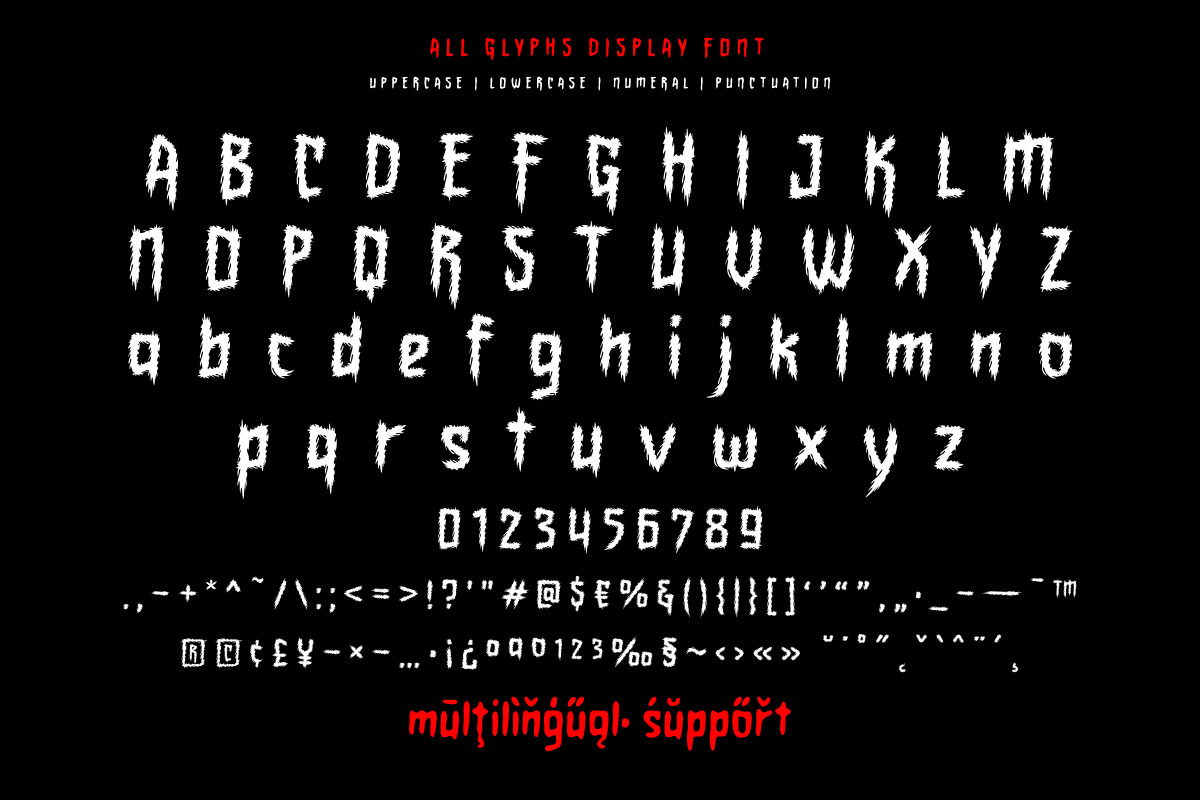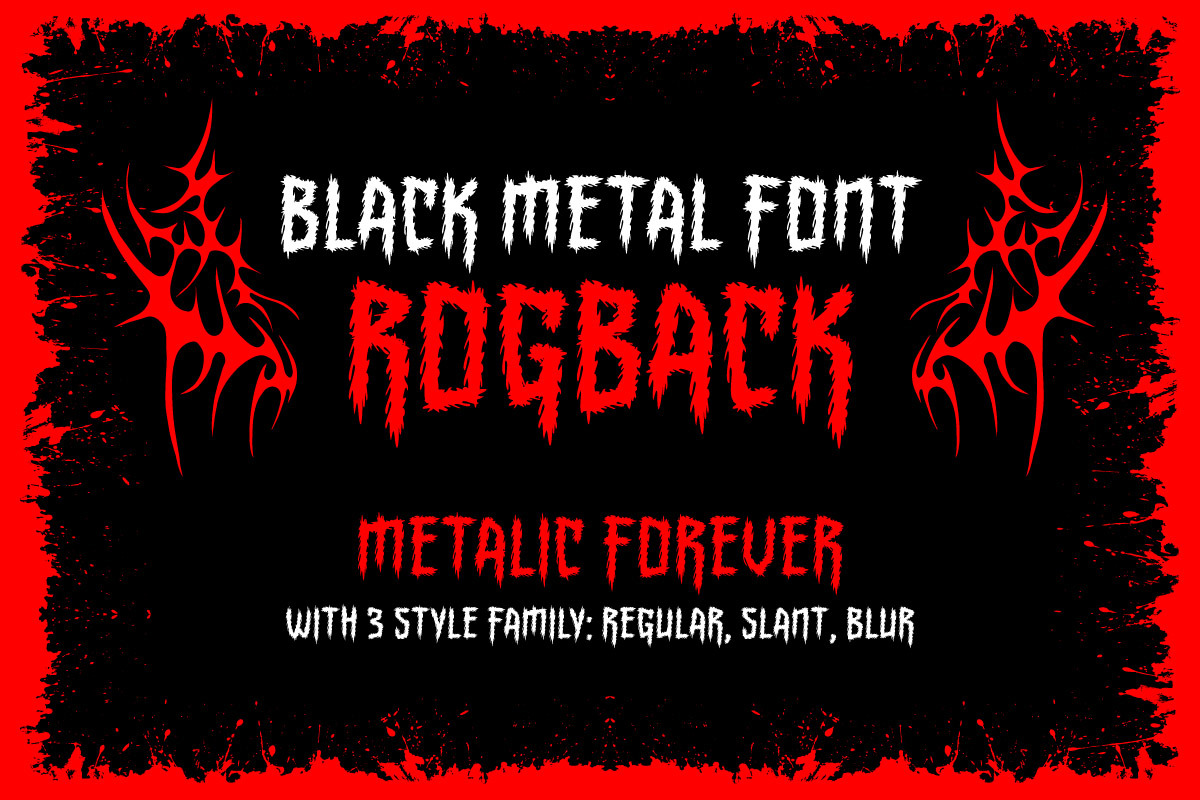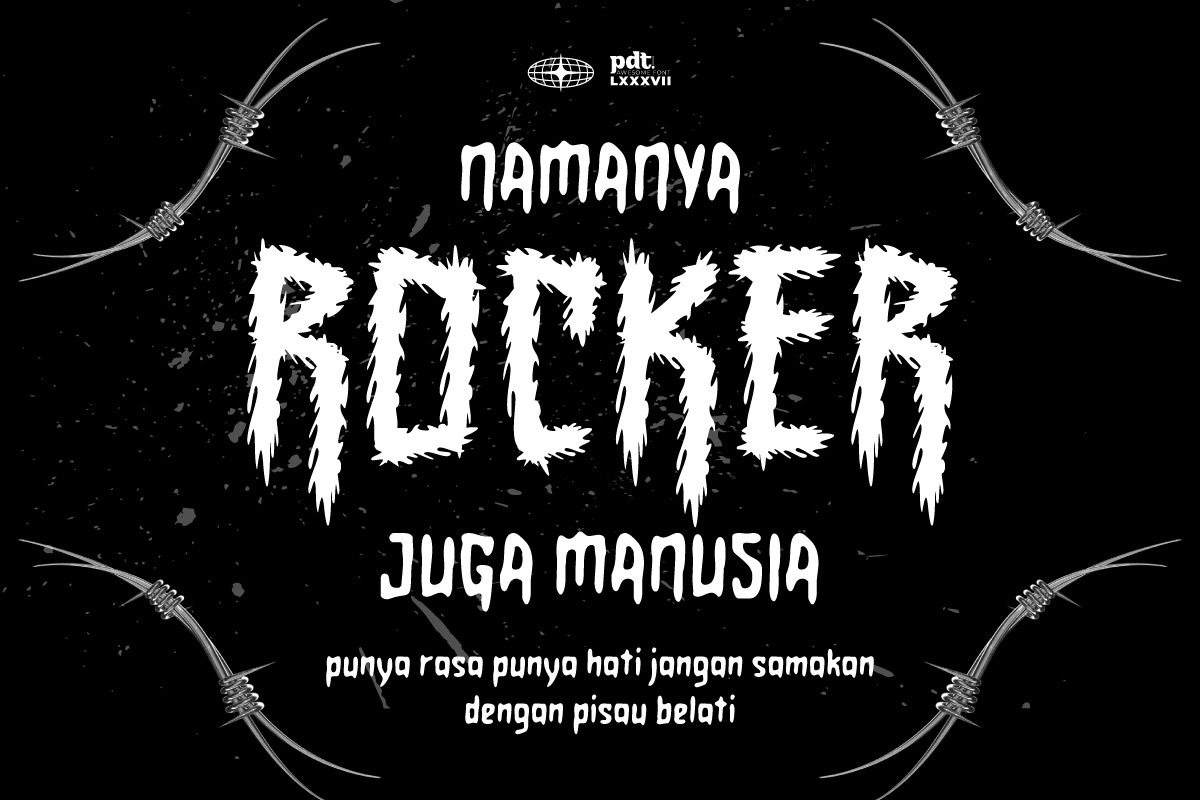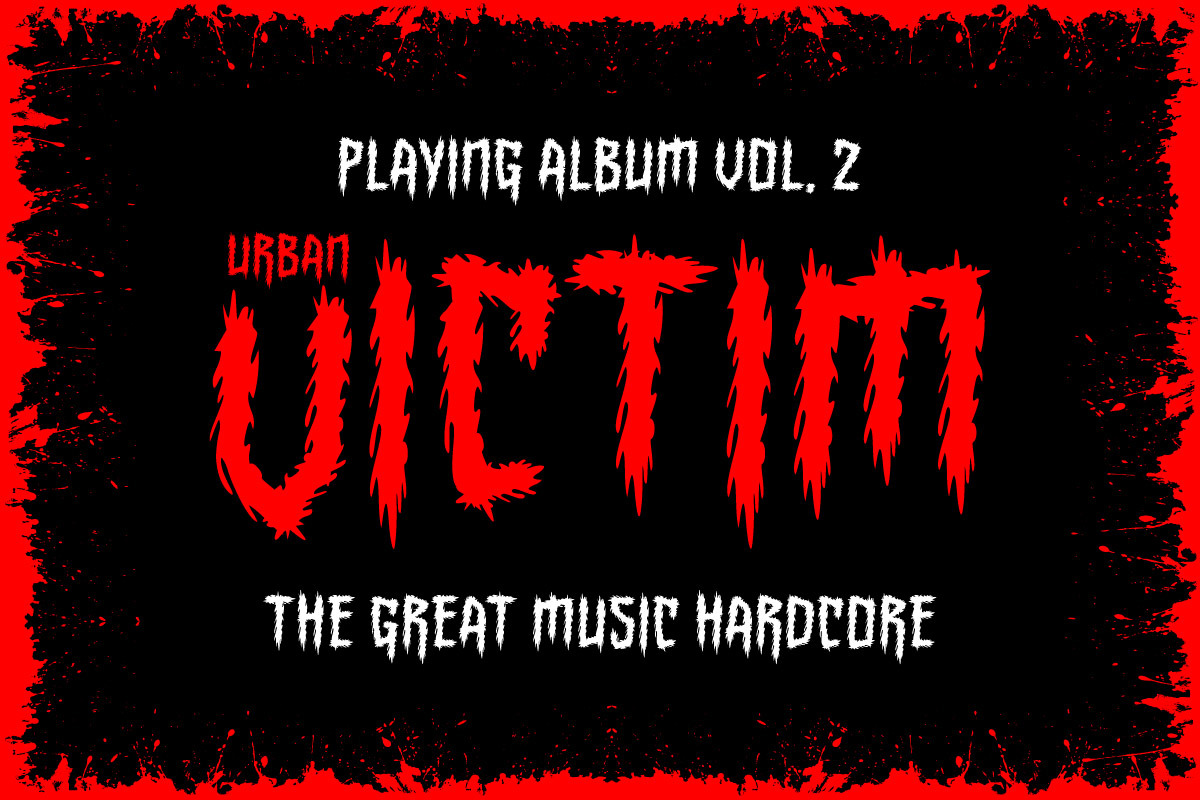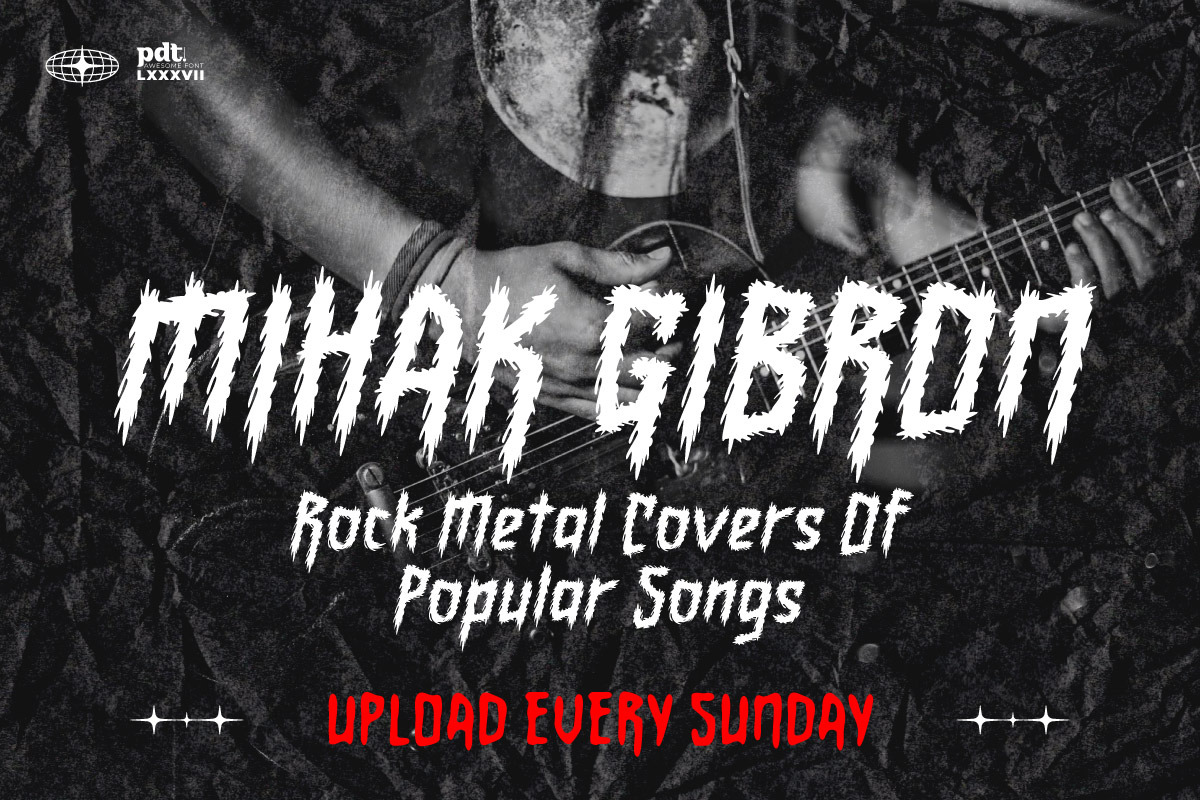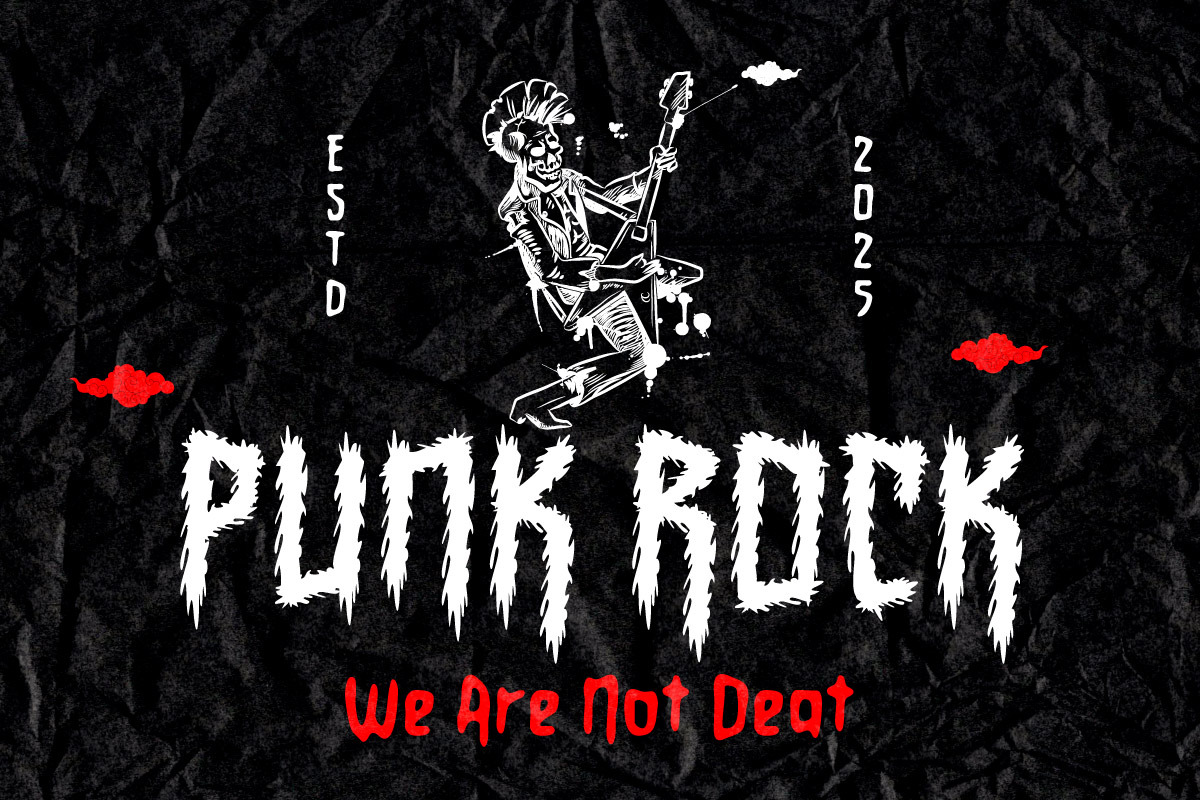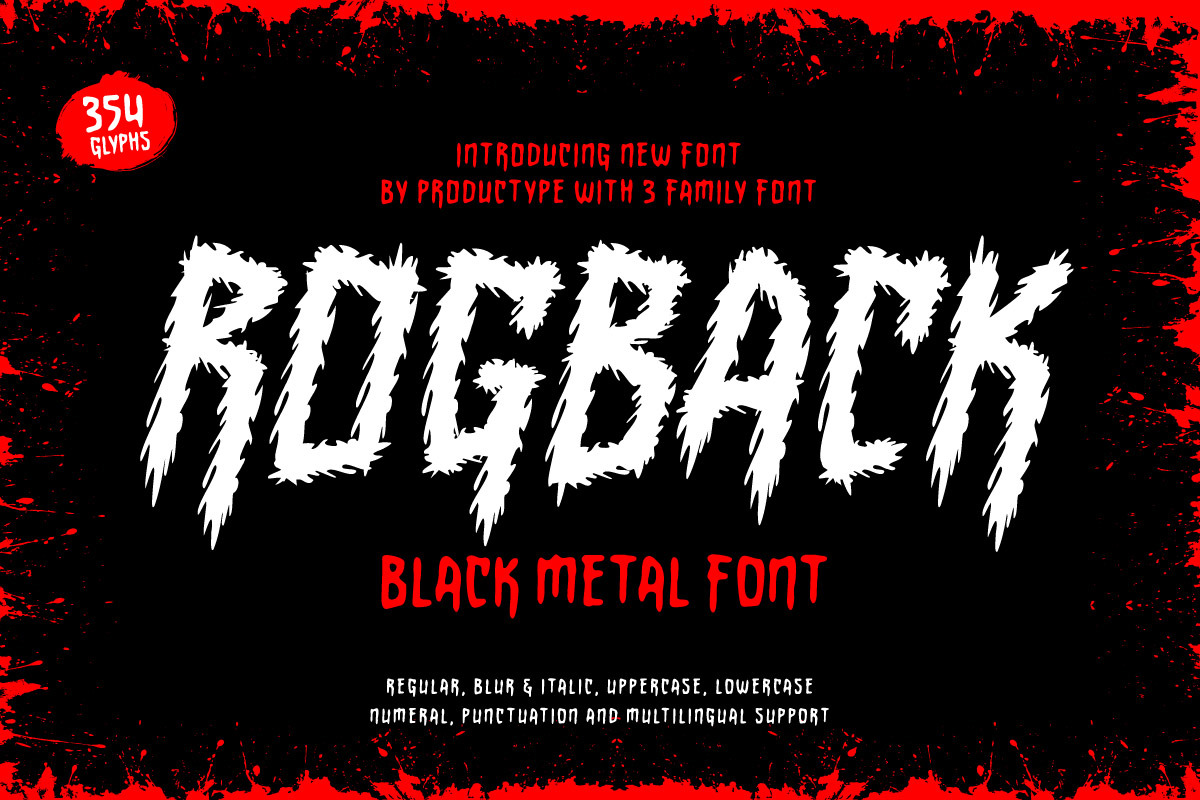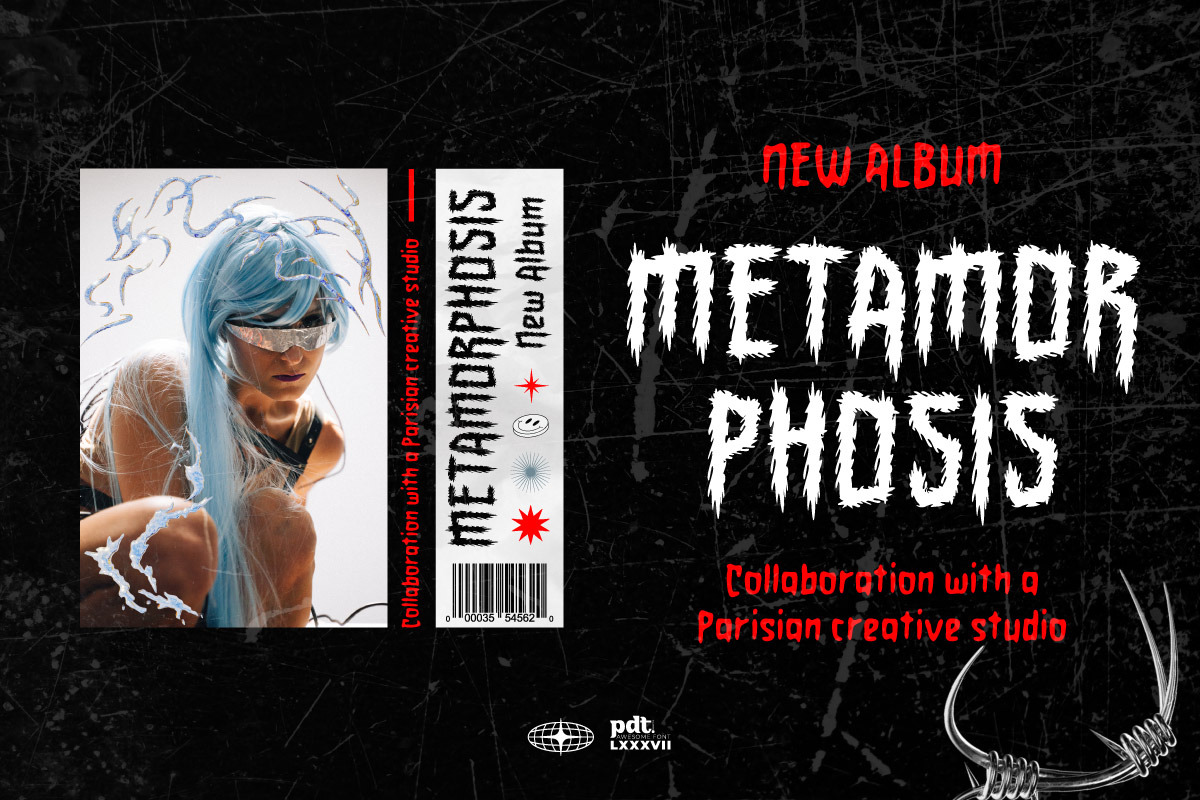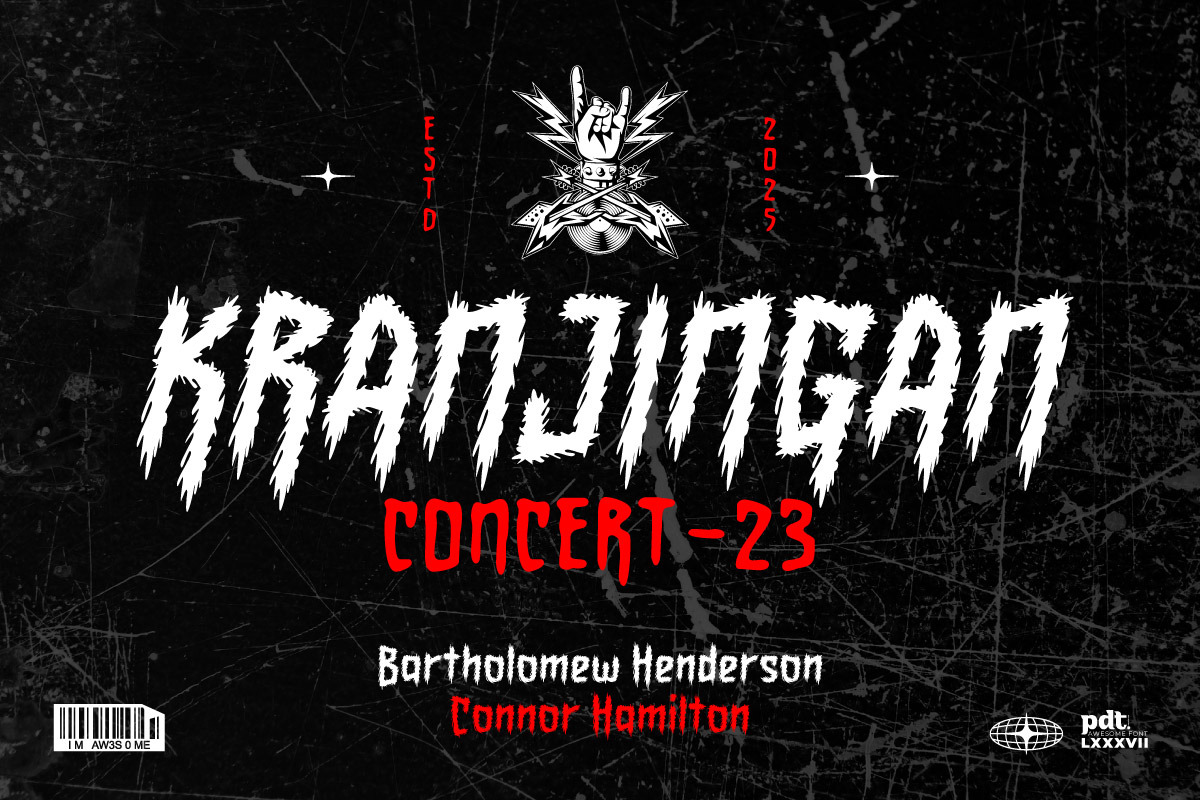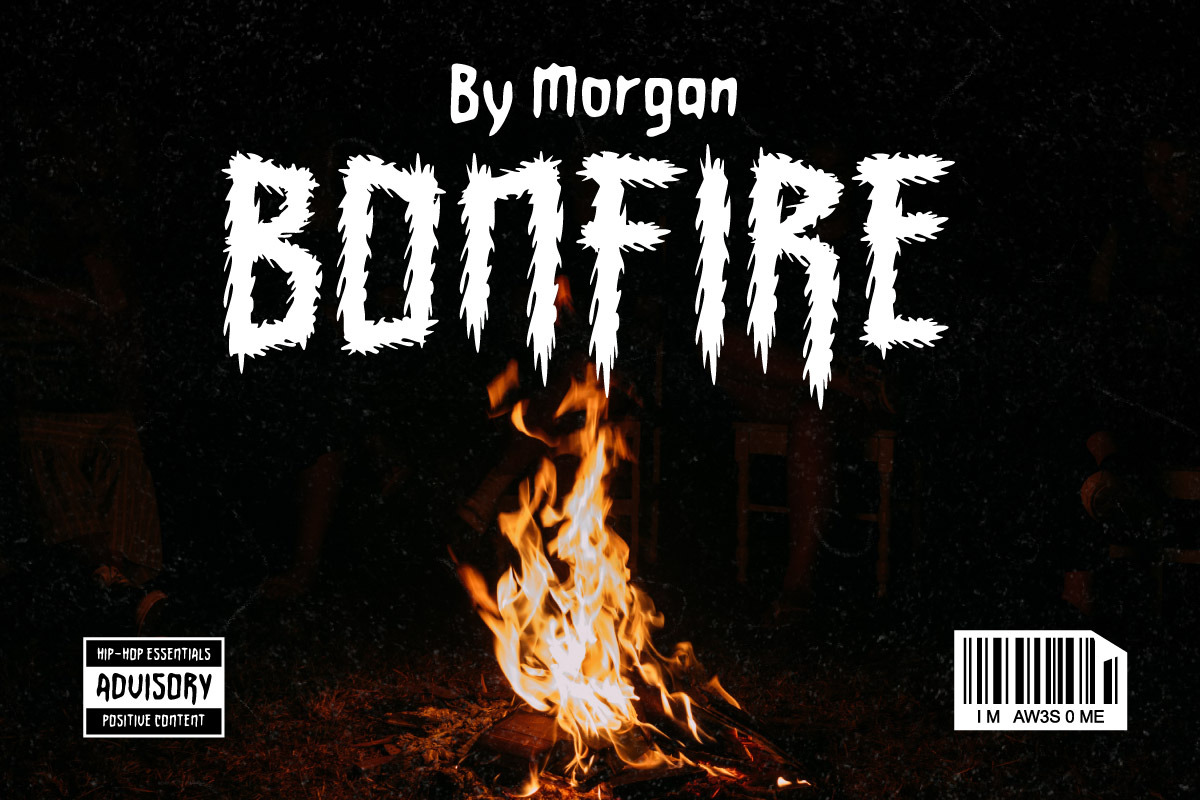
Rogback - Black Metal Font
Rogback – Black Metal Font is a brutal and bold typeface inspired by underground black metal and hardcore aesthetics. Designed for those who dare to be different, Rogback delivers raw energy and sharp edges—perfect for band logos, music posters, album covers, and heavy branding visuals.
This font includes 3 unique styles: Regular, Blur, and Italic — allowing you to experiment and create intense visuals. With uppercase, lowercase, numerals, punctuation, and multilingual support, Rogback is both aggressive and versatile.